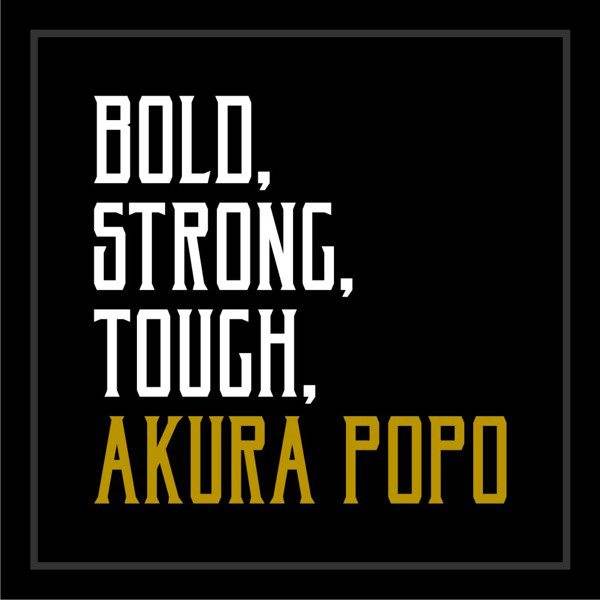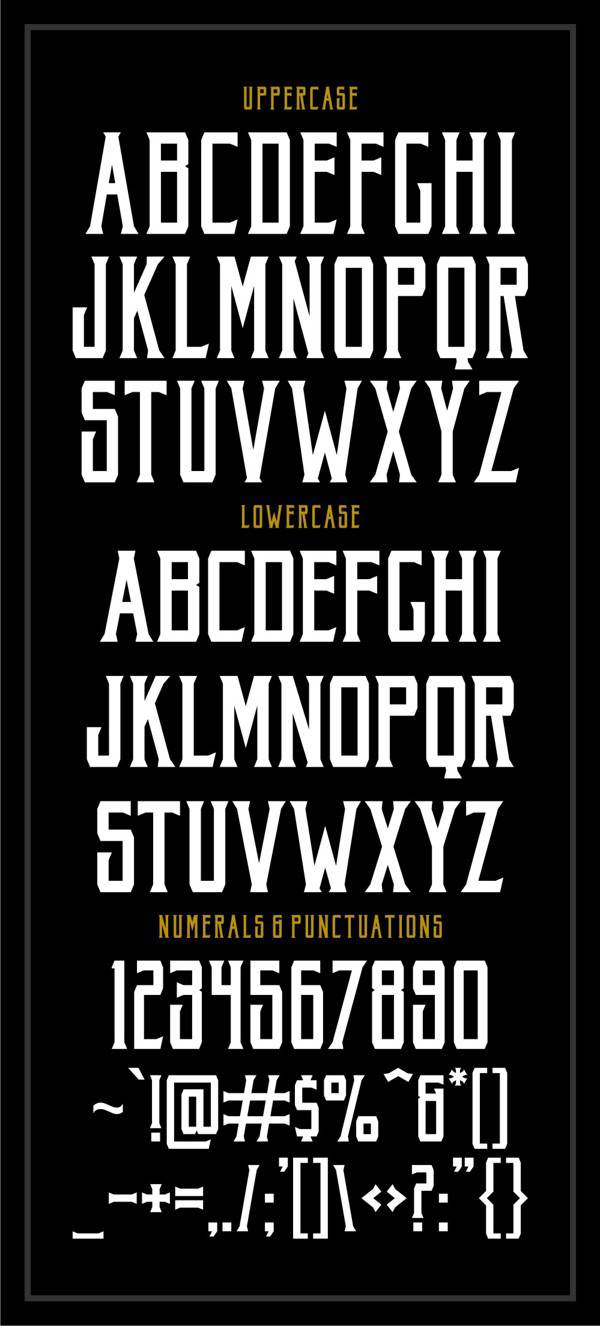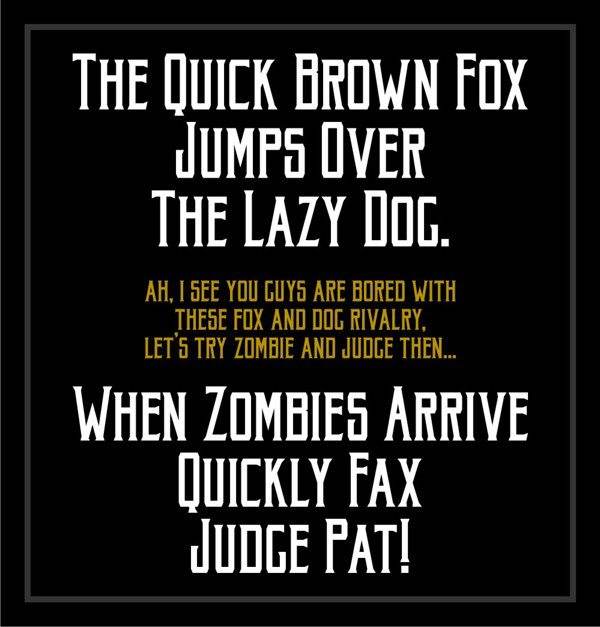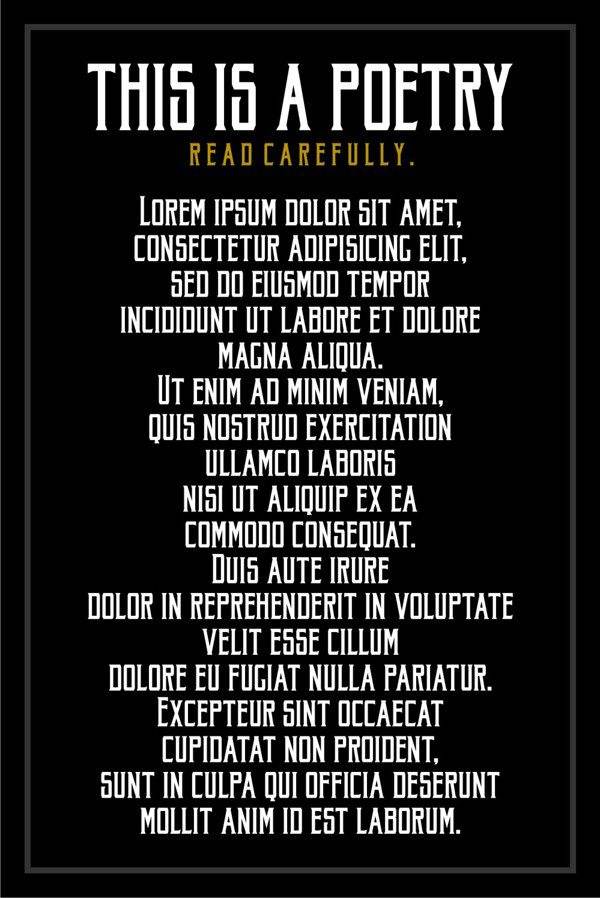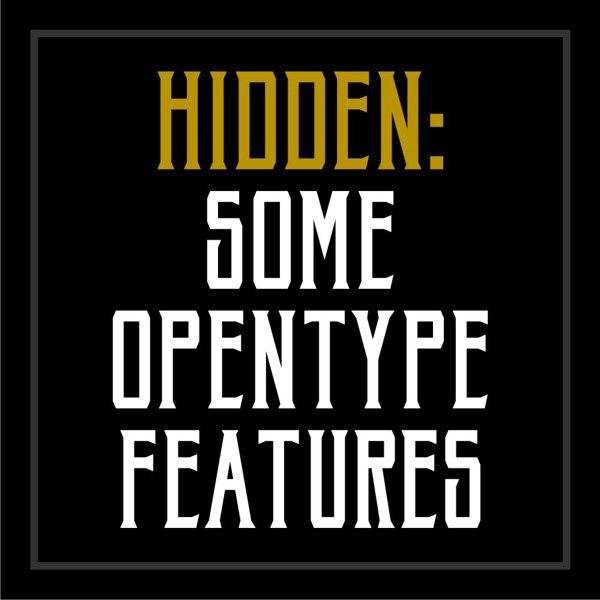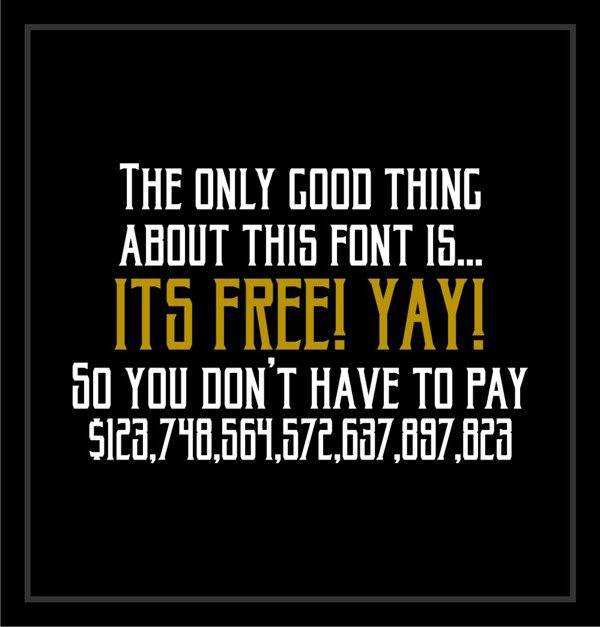
Free Font Of The Day #16 – Akura Popo Font
Akura Popo Font comes from Twicolabs Design  is a vintage and classic condensed serif font with bold, strong and tough looking style.